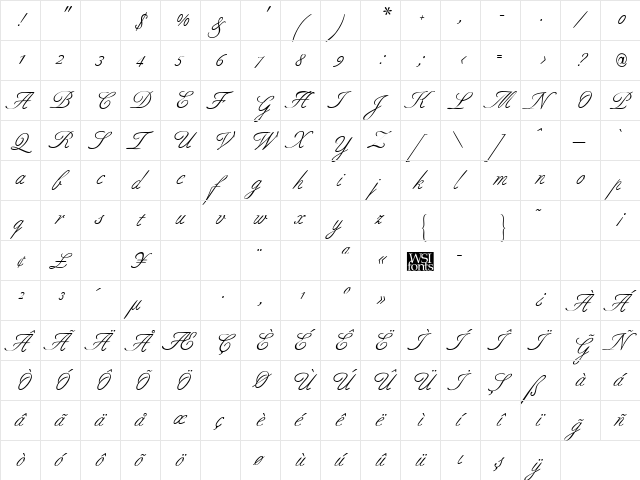
TrSah AllureScript Regular
Design Context for TrSah AllureScript Typeface
TrSah AllureScript brings a calligraphic fluidity to the page — its connecting strokes and expressive curves give it an unmistakably human quality.
Font Pairing: Combine TrSah AllureScript with a simple geometric sans for maximum contrast — the tension between flowing curves and clean structure is a classic typographic pairing.
Pro Tip: Pair TrSah AllureScript with a clean sans-serif for supporting text. The contrast between fluid script and geometric structure creates an elegant typographic hierarchy.